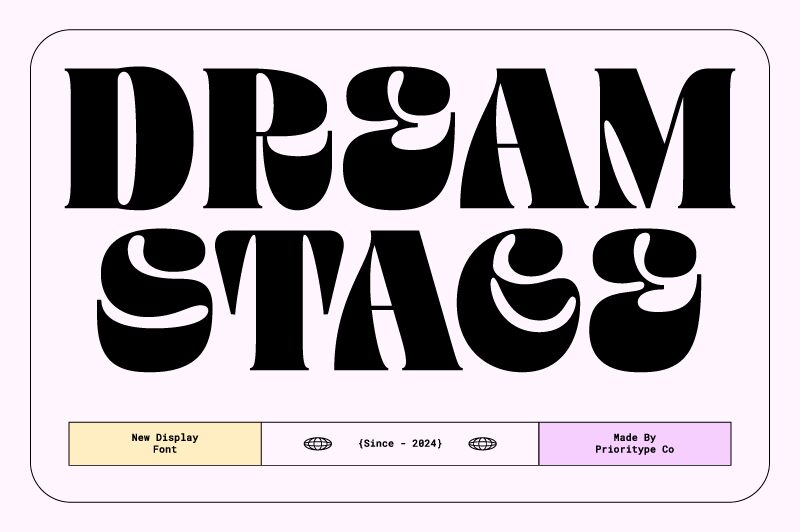
Dream Stage font by Prioritype Co is a free groovy typeface with a unique appearance. It encompasses a whirlwind of both artistic and groovy design details that allow it to stand out from the crowd. The font looks nothing like your basic typeface; it has a dramatic presence created through its expressive letters. Another element that makes it more eye-catching is its retro-inspired style, which is created with a modern twist.